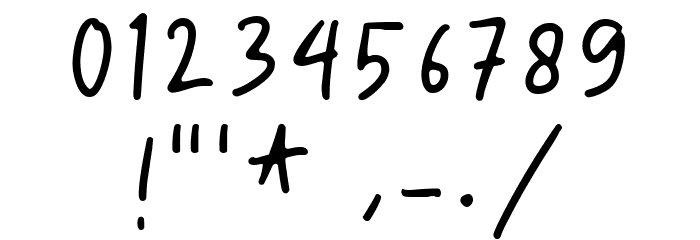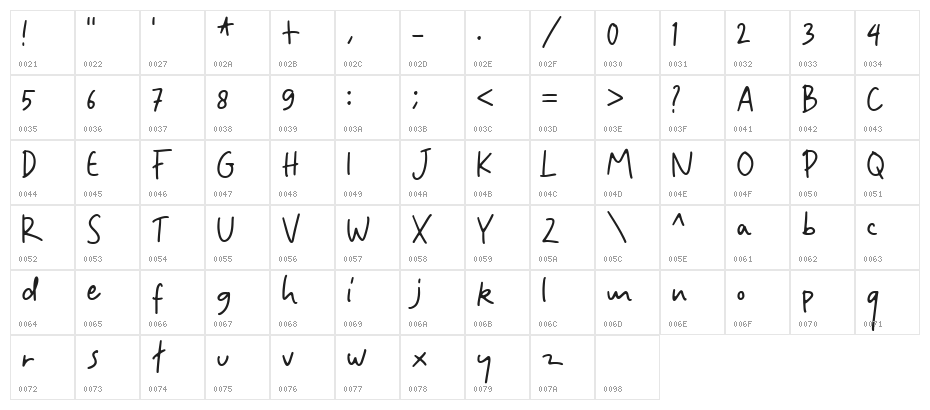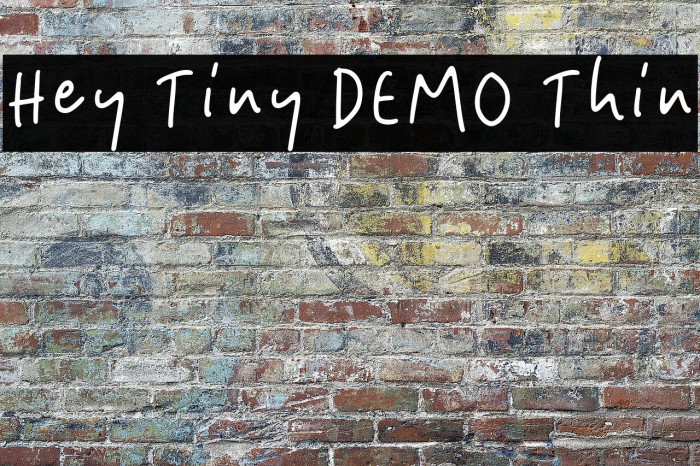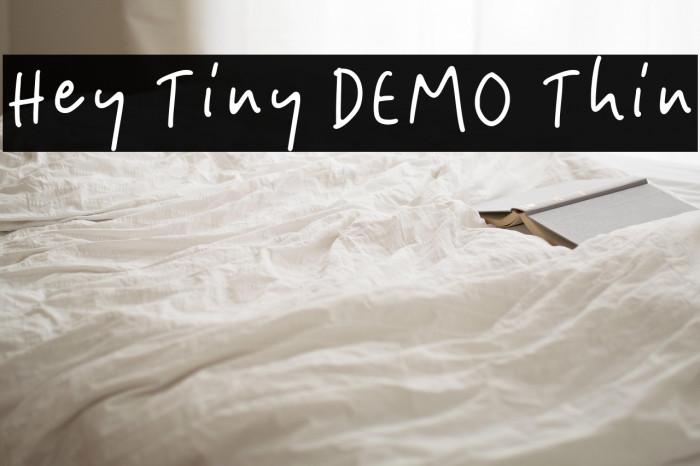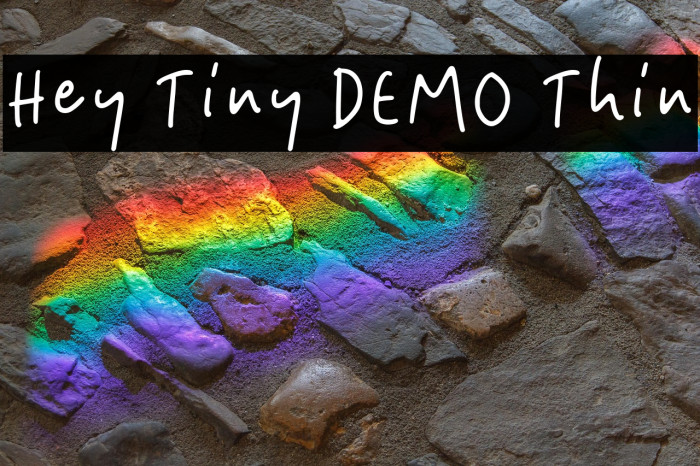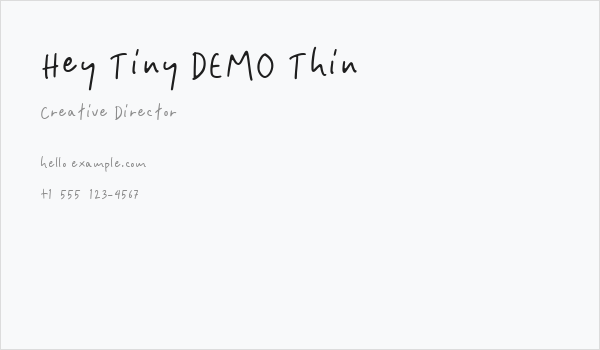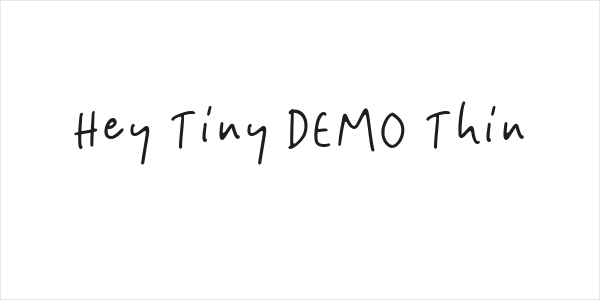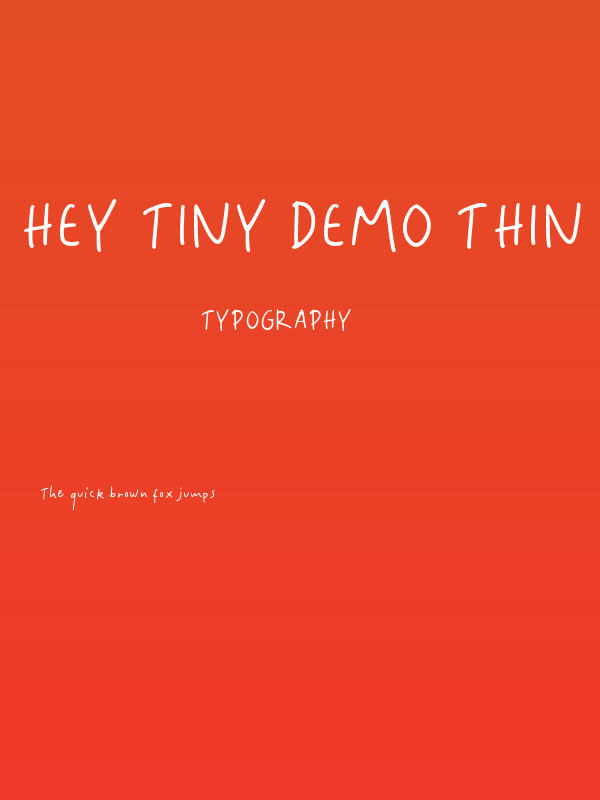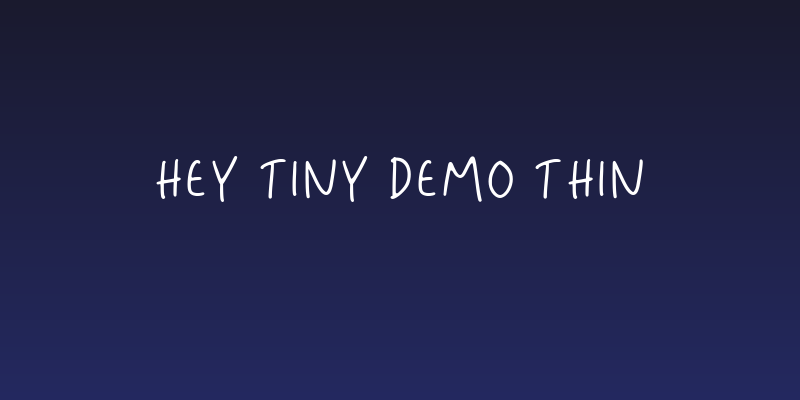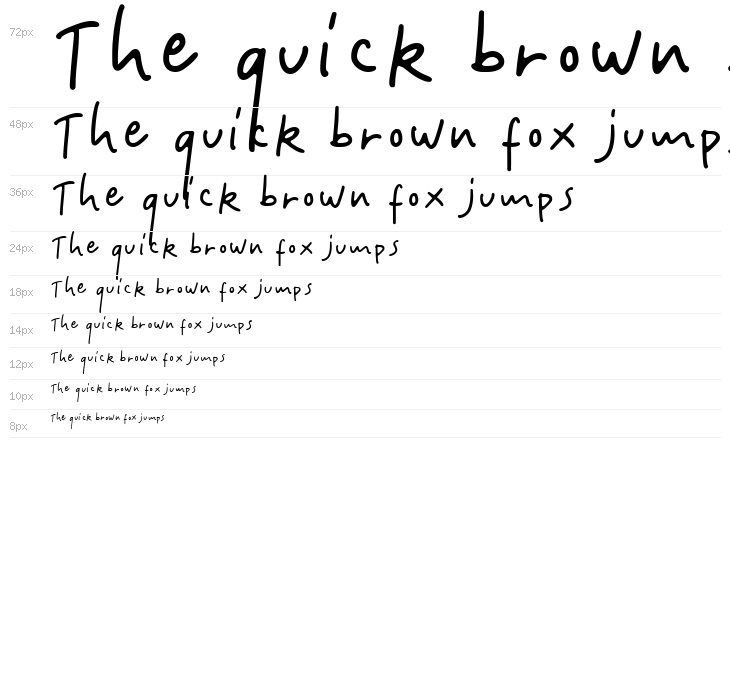
Hey Tiny DEMO Thin Font
Hey Tiny DEMO Thin Description
This font features a playful and casual handwritten style, characterized by its thin strokes and slightly uneven letterforms that give it a personal touch. The uppercase letters are bold and prominent, while the lowercase letters maintain a consistent flow, adding to the font's approachable and friendly appearance. The numerals are clear and legible, matching the informal style of the alphabet. Special characters are included, maintaining the same whimsical and relaxed aesthetic. This font is perfect for projects that require a personal or informal tone, such as greeting cards, invitations, or casual branding.